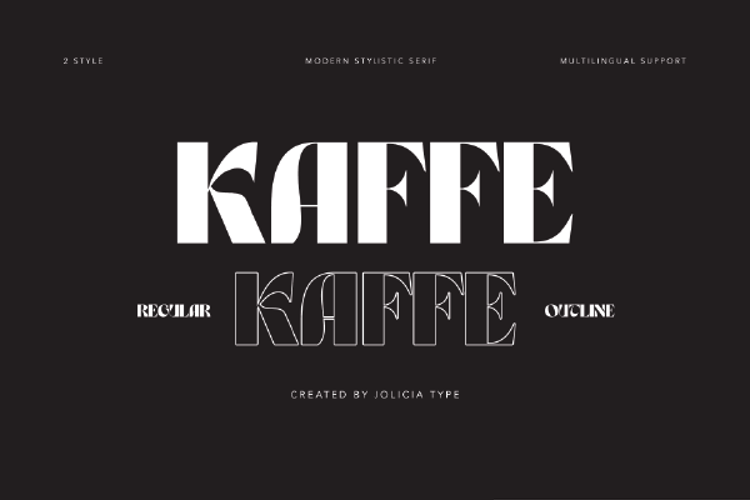
Kaffe Font
Kaffe is a display typeface inspired by the retro and psychedelic
typefaces out. with a bold style and we provide a combination outline
style that fits both of them to make it look very trendy and more
standout.